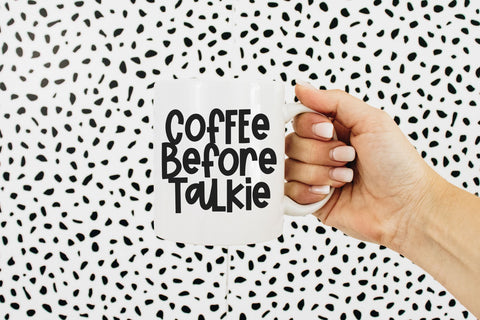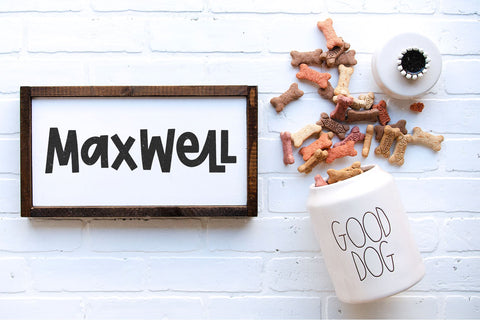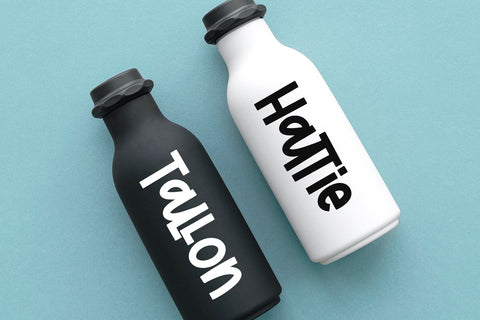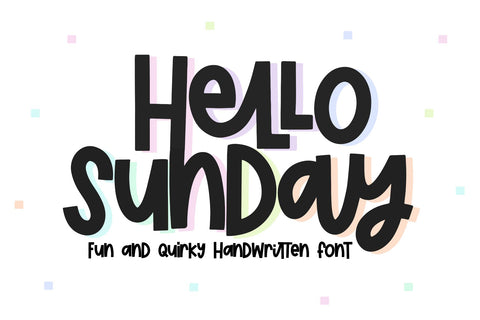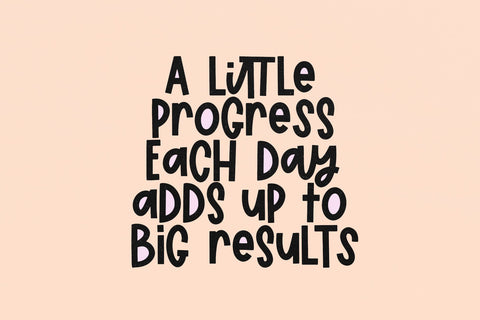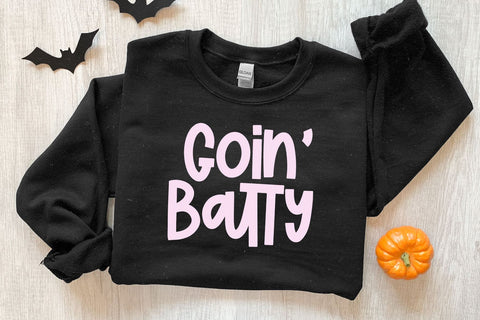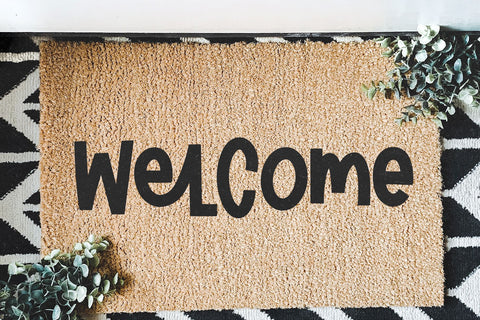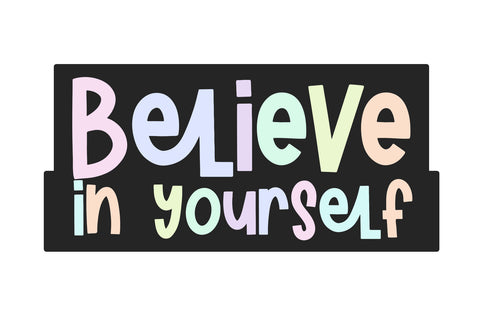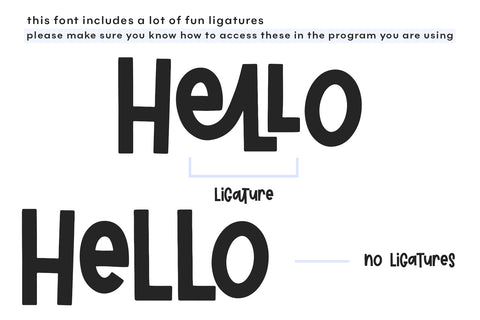
Hello Sunday - A Quirky Handwritten Font
Hello Sunday is a quirky handwritten font!
This font has a lot of extra ligatures to give it a unique look. It would be best used in programs that support opentype features. You can also access these ligatures through your font book (Mac) or character map (windows).
This font does include accent characters.